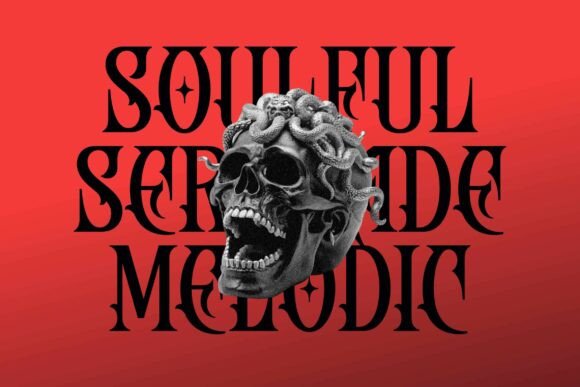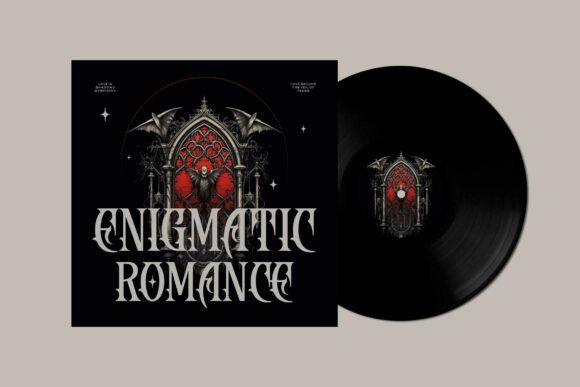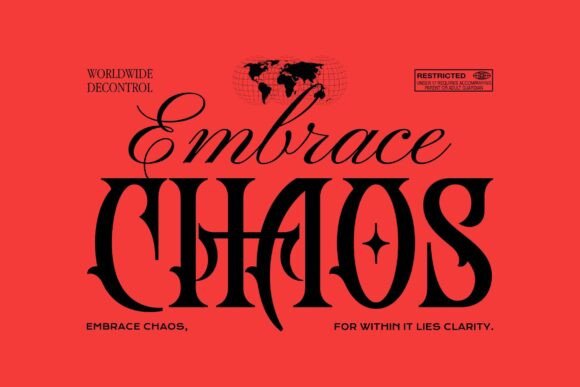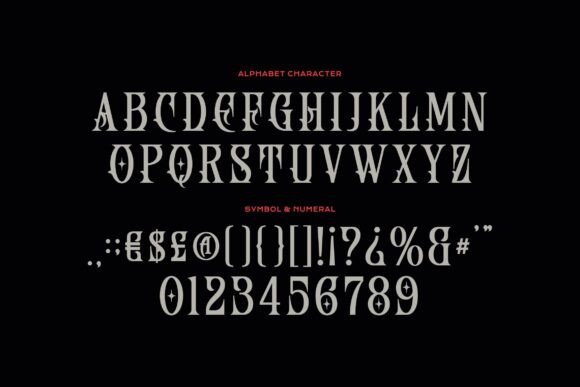
Introduction to Echoes Font
Echoes blackletter style is a bold and menacing typeface inspired by the dark and intense aesthetic of the death metal music genre.
With sharp, angular letterforms and jagged edges, this font exudes an aura of aggression and power Each character is meticulously crafted to convey a sense of brutality and raw energy.